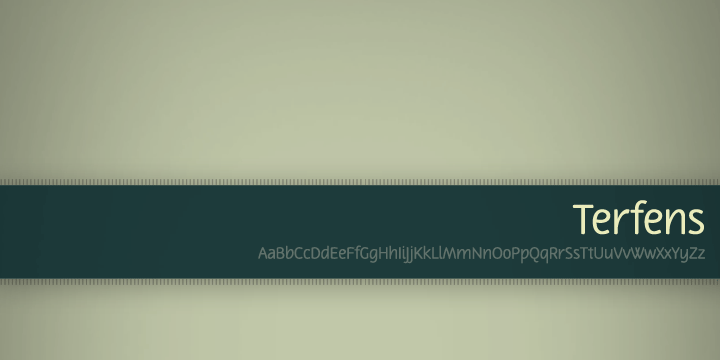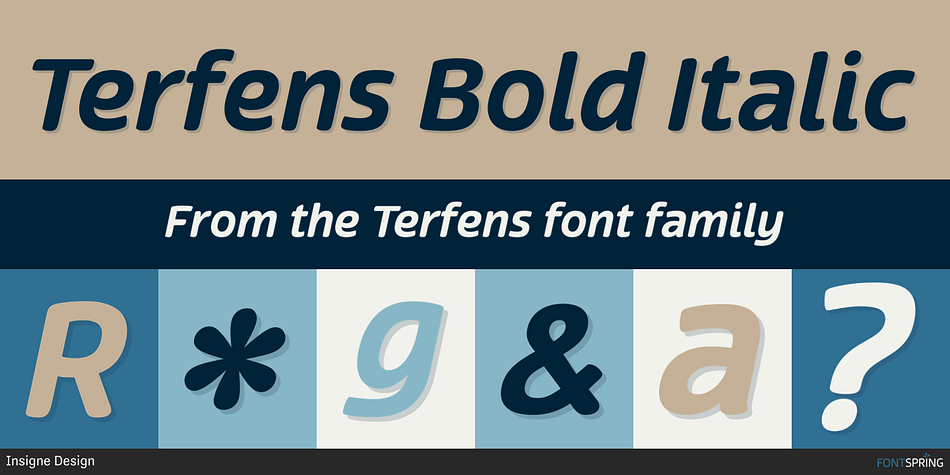
Terfens Bold Italic
Terfens is a sans serif font family. This typeface has twelve styles and was published by Insigne Design.
Terfens is a sans serif with inspiration from chancery scripts like Stefania.
Terfens is a sans serif with inspiration from chancery scripts like Stefania. Subtly rounded and eschewing harsh technical lines, Terfens is a warm and inviting typeface. Its tall x-height gives it a friendly but not overly informal feel. Its readability and unique contemporary look makes it suitable for a wide range of design applications.